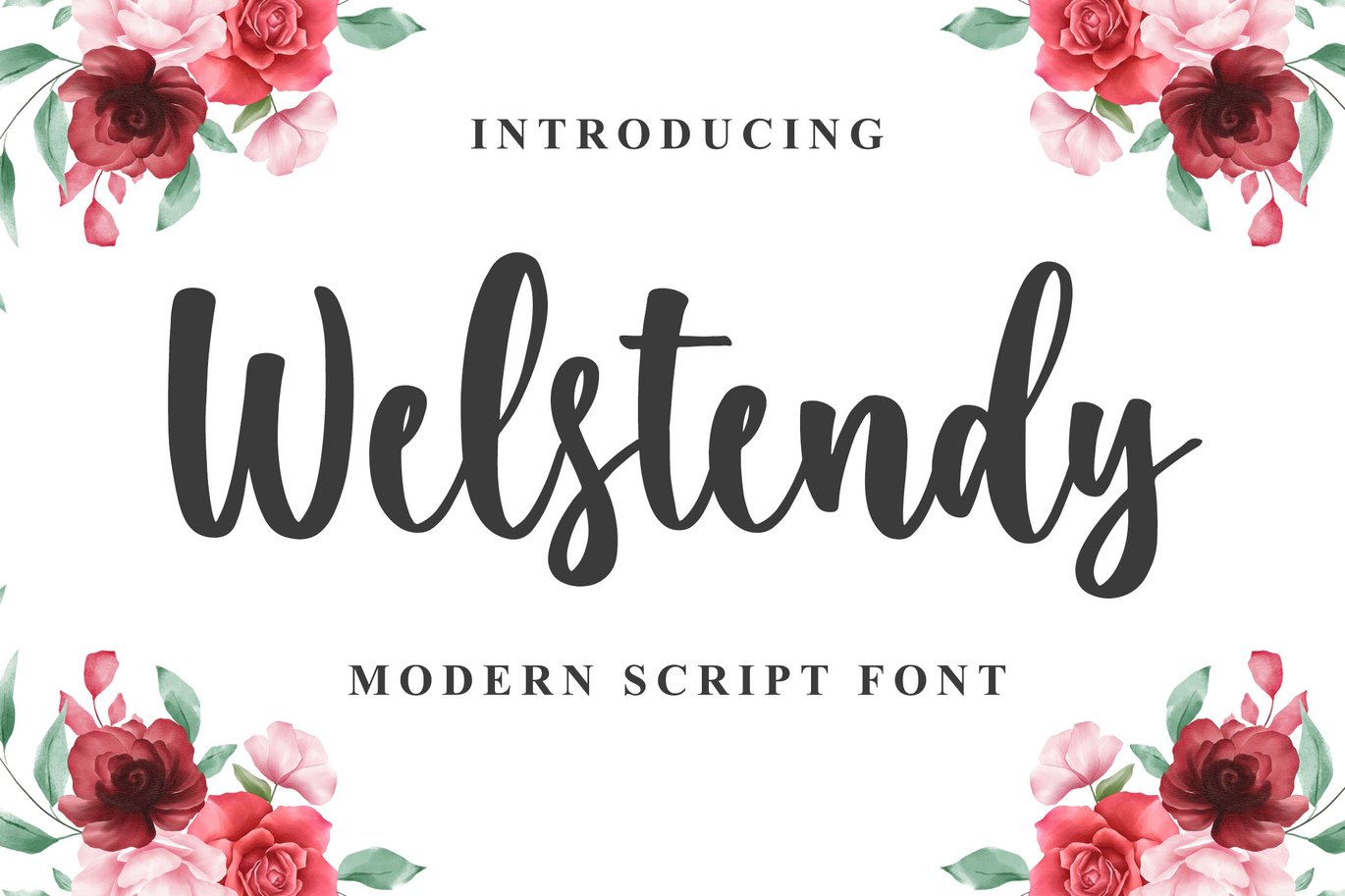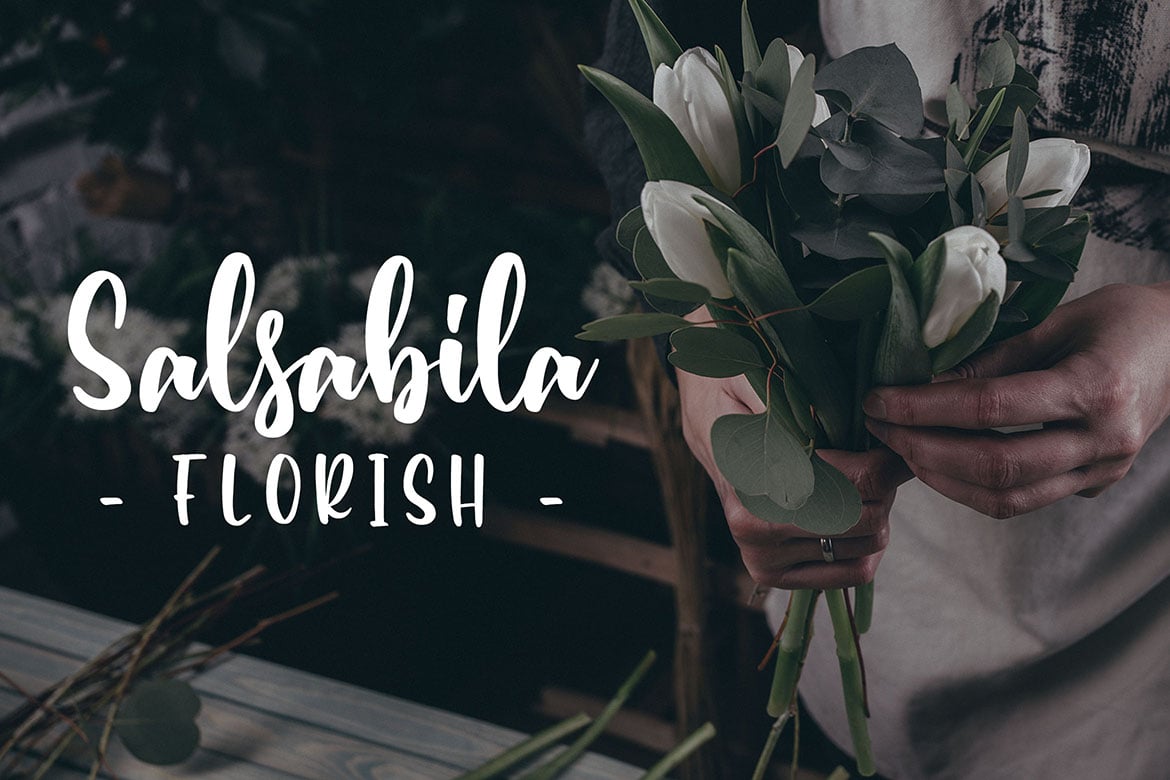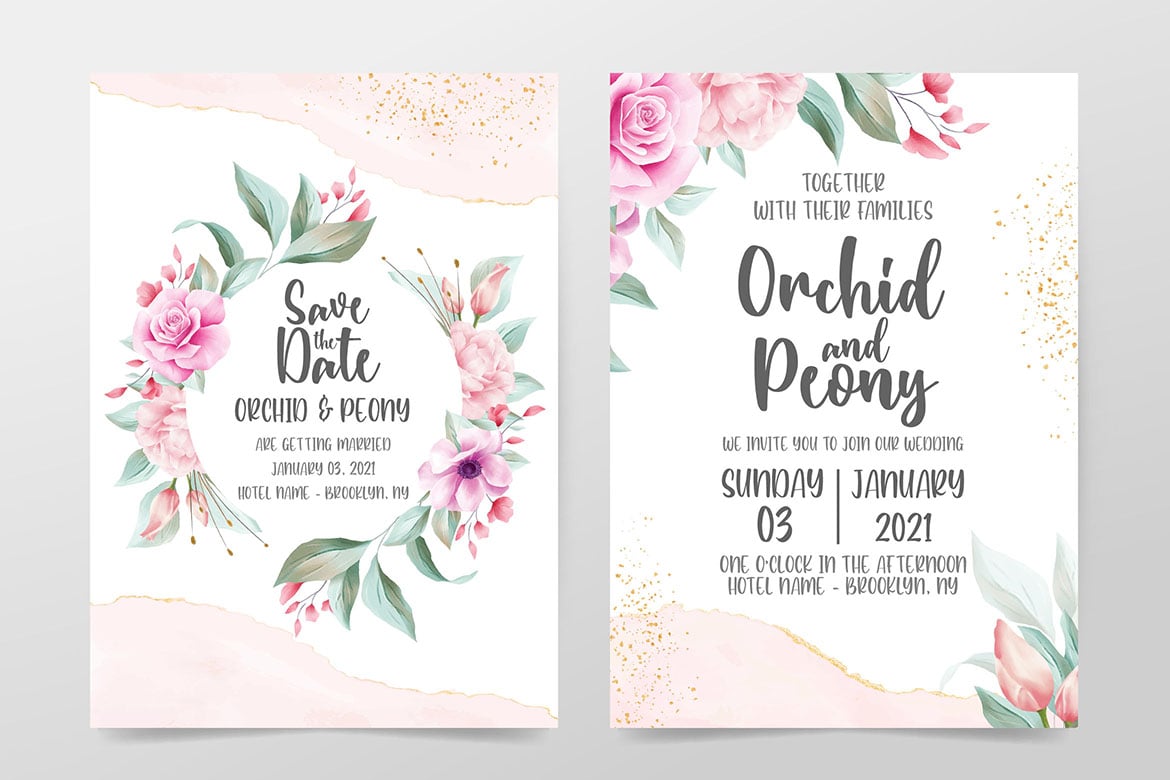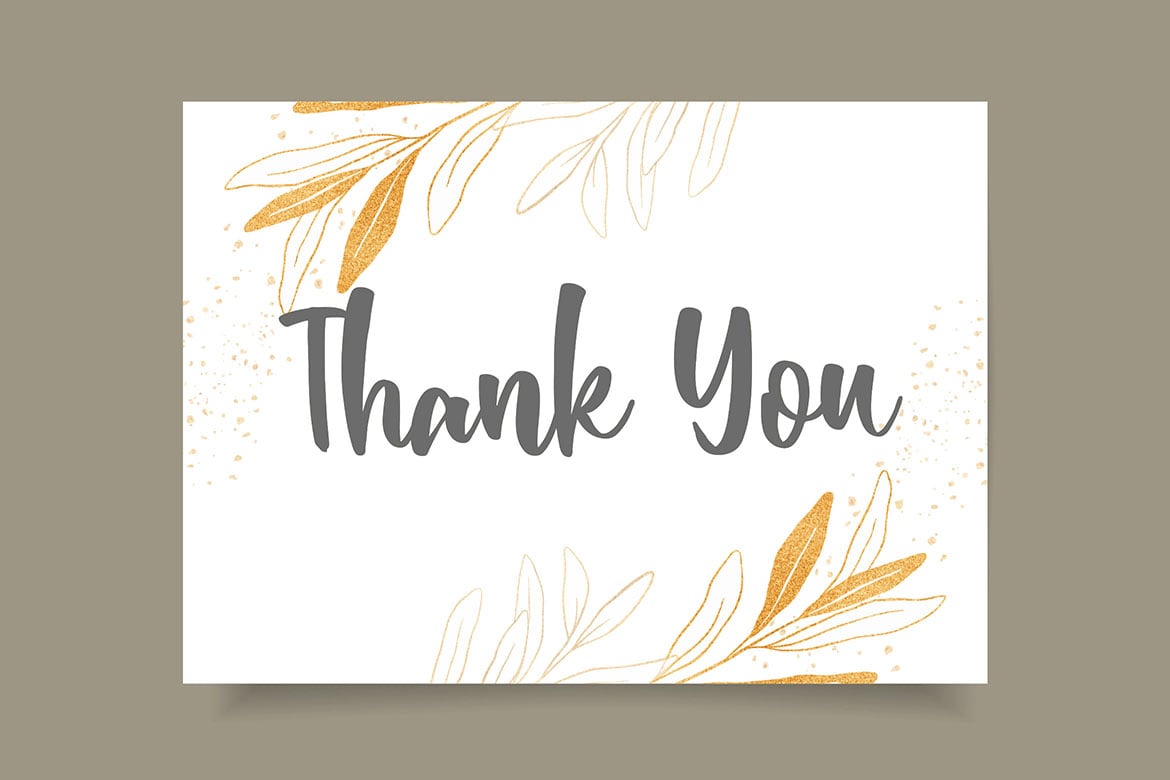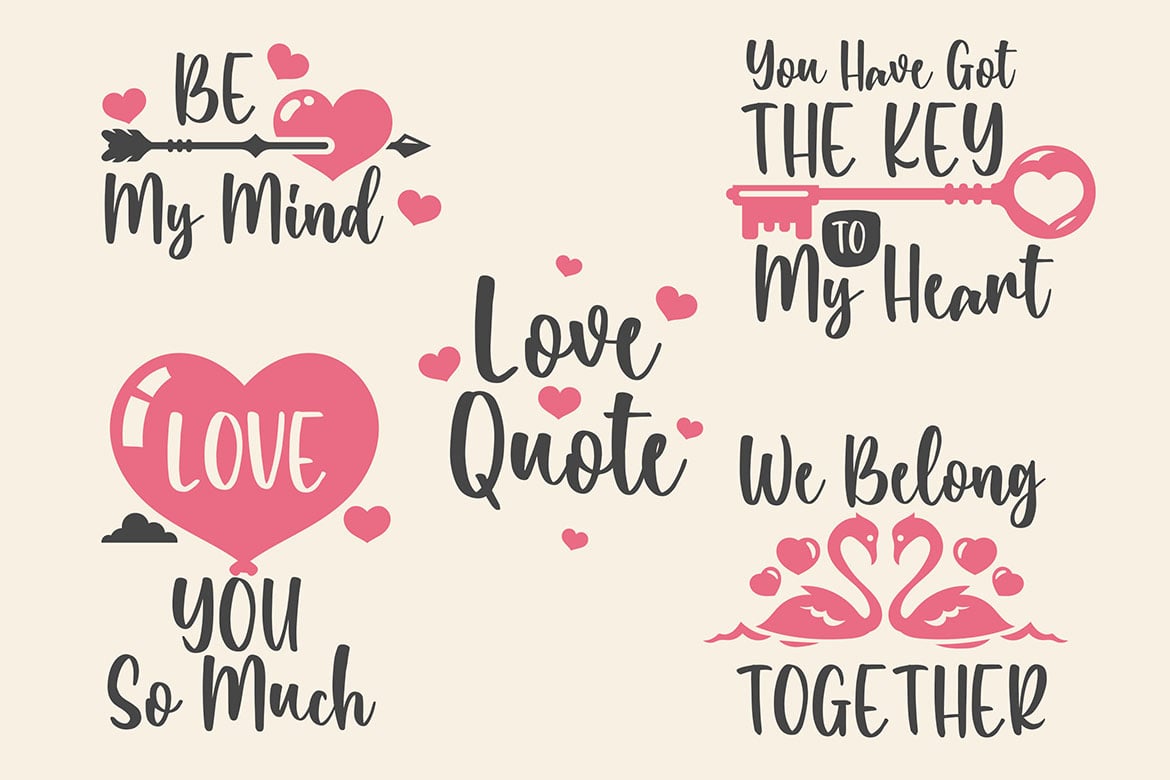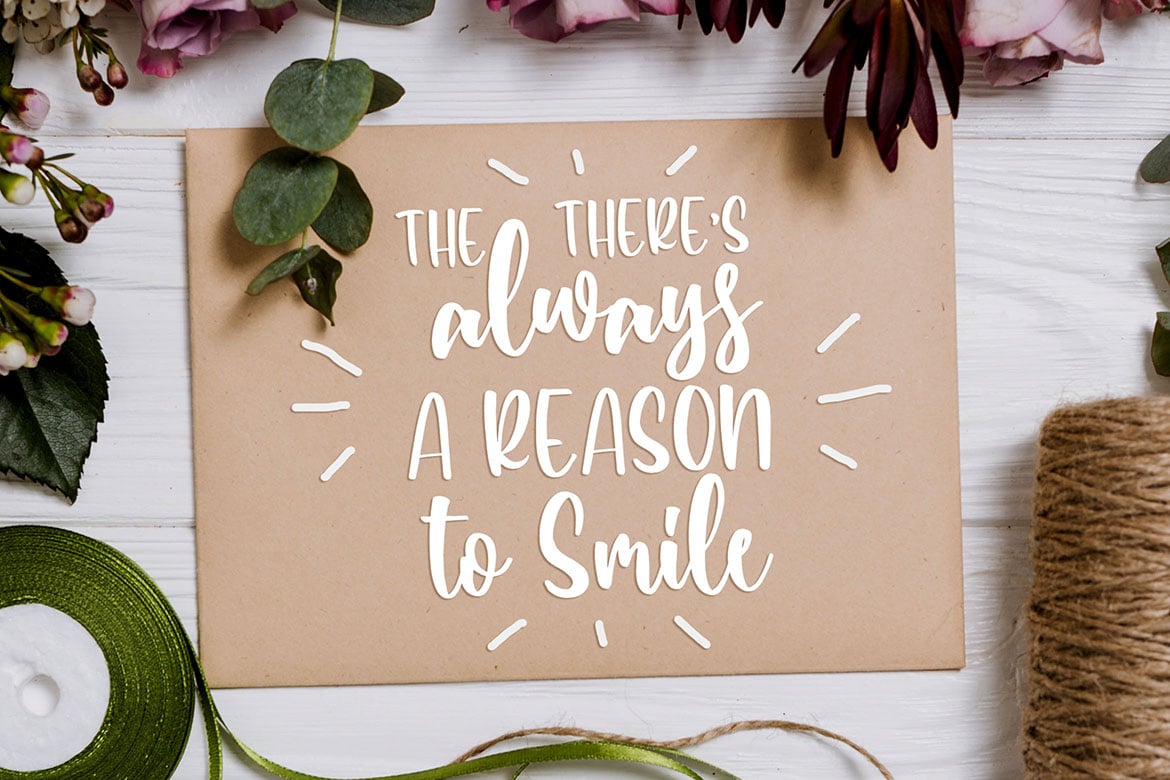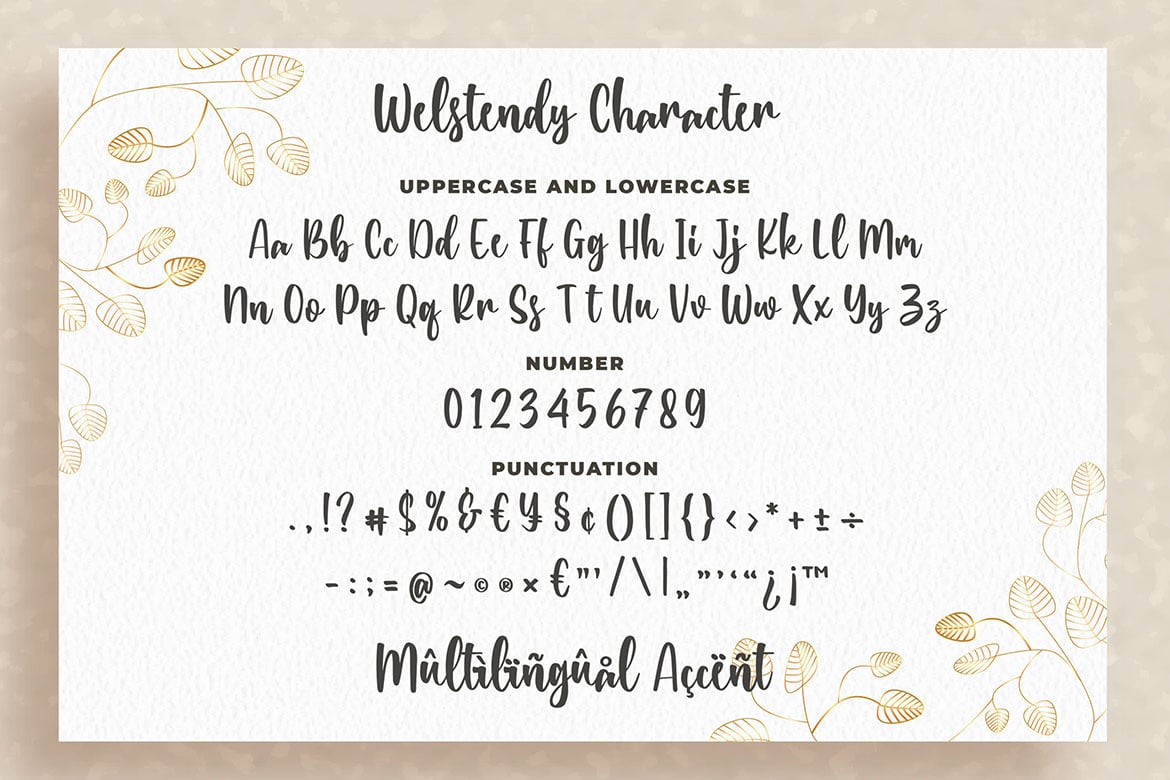
Welstendy – Modern Calligraphy Font
Introducing of our new product the name is Welstendy Modern Calligraphy Font. Welstendy inspired by modern calligraphy style this font is a fun theme very good for display, wedding, valentine theme, logotype and etc
MULTILINGUAL ACCENT :